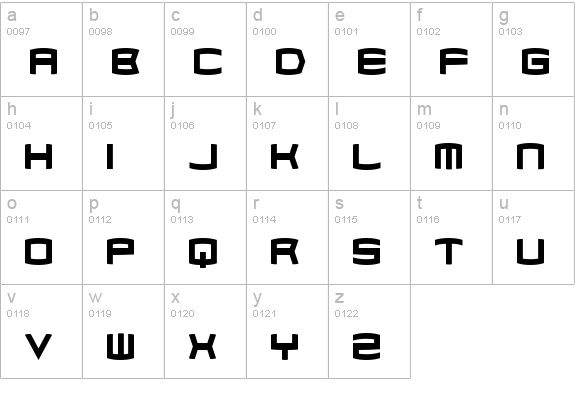
Dubstep Cadence font is a modern and edgy typeface that perfectly captures the essence of the dynamic Dubstep music genre. With its bold and intricate letterforms, Dubstep Cadence exudes energy and creativity, making it an ideal choice for projects that require a contemporary and urban aesthetic. This versatile font is designed to make a statement and stand out from the crowd. Best of all, Dubstep Cadence font is available for free download at FontsMarket.com. Get your hands on this unique typeface today and add a touch of boldness to your designs. Let Dubstep Cadence bring a fresh and innovative vibe to your projects, whether it's for posters, album covers, or social media graphics. Embrace the power of Dubstep Cadence font and make your designs pop!